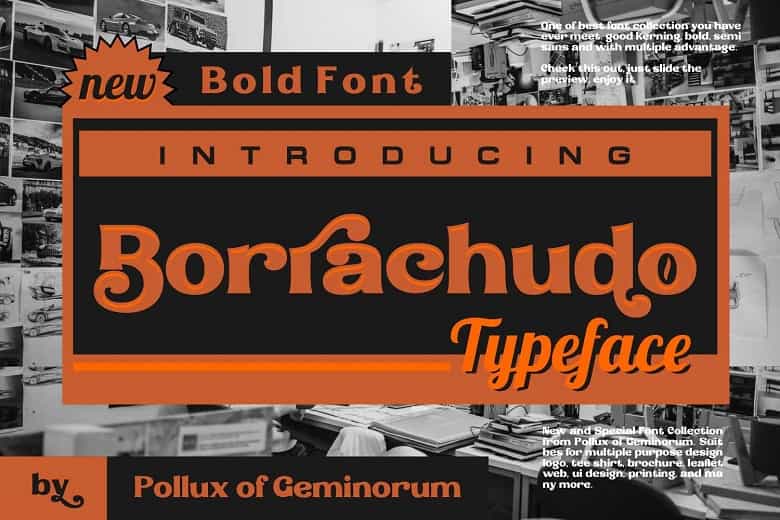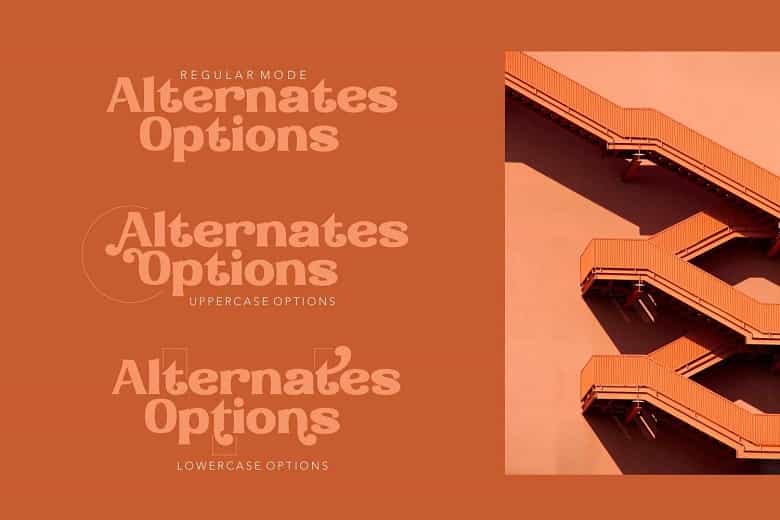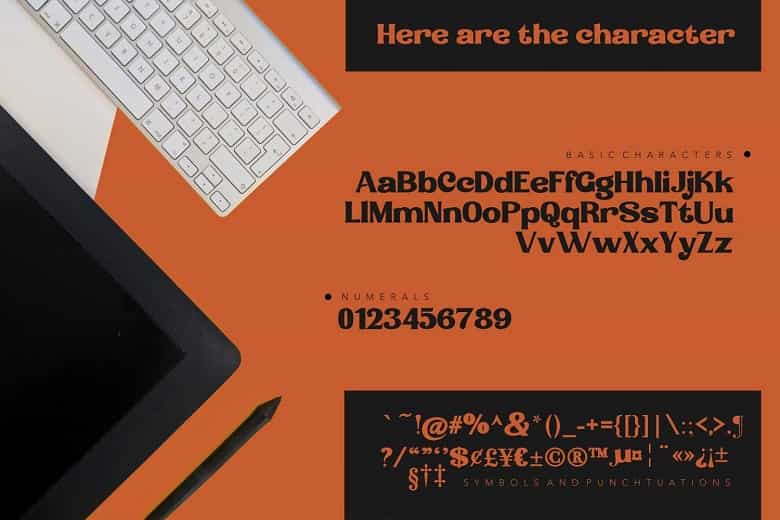
Borrachudo is an elegant, catchy and unique serif font. It is appropriate for any branding project such as logo designing, t-shirts, sports wears and many more. It will be good to use in several environments.